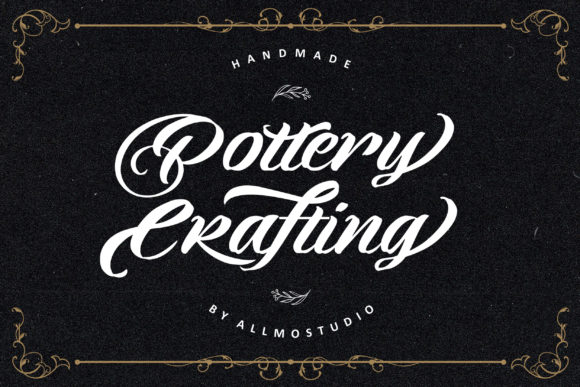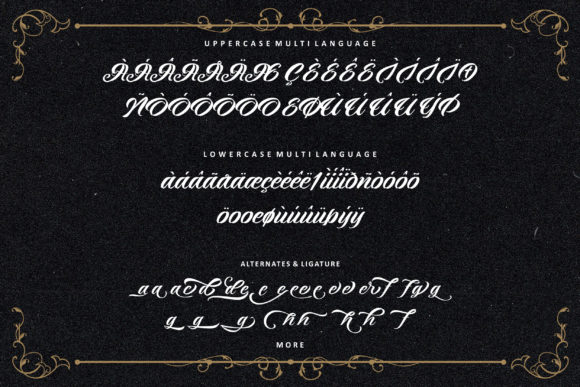
About Pottery Crafting Font
Pottery Crafting is a cute and casual handwritten font with an incredibly friendly feel. Whether you’re looking for fonts for Instagram or calligraphy scripts for DIY projects, Pottery Crafting will turn any creative idea into a true piece of art! This font is PUA encoded which means you can access all of the cute glyphs and swashes with ease! It also features a wealth of special features including alternate glyphs and ligatures.